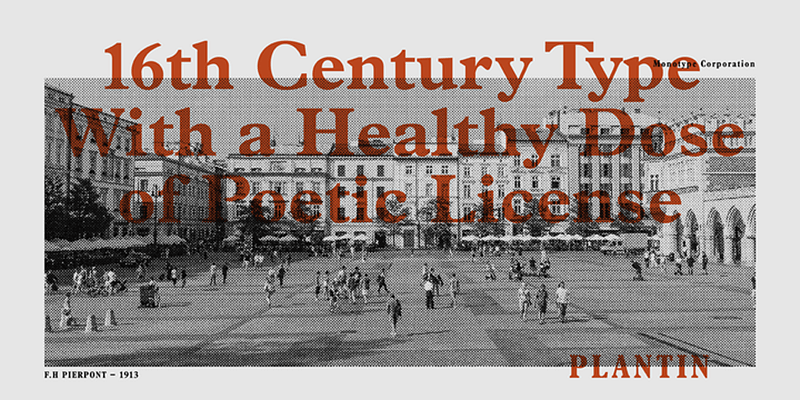
Plantin specimen
Plantin
Designed for the Monotype Corporation in the early 1900s by F.H. Pierpont, Plantin is named for the sixteenth-century Antwerp printer Christophe Plantin. Although not based directly on his work, the model for Plantin was taken from the huge collection of type Plantin had procured. Like Times Roman, this typeface was designed to conserve paper: it has a large x-height and appears slightly condensed. Plantin is a fine text face for books, journals, and textbooks. License [Plantin](https://www.myfonts.com/fonts/mti/plantin/) on MyFonts